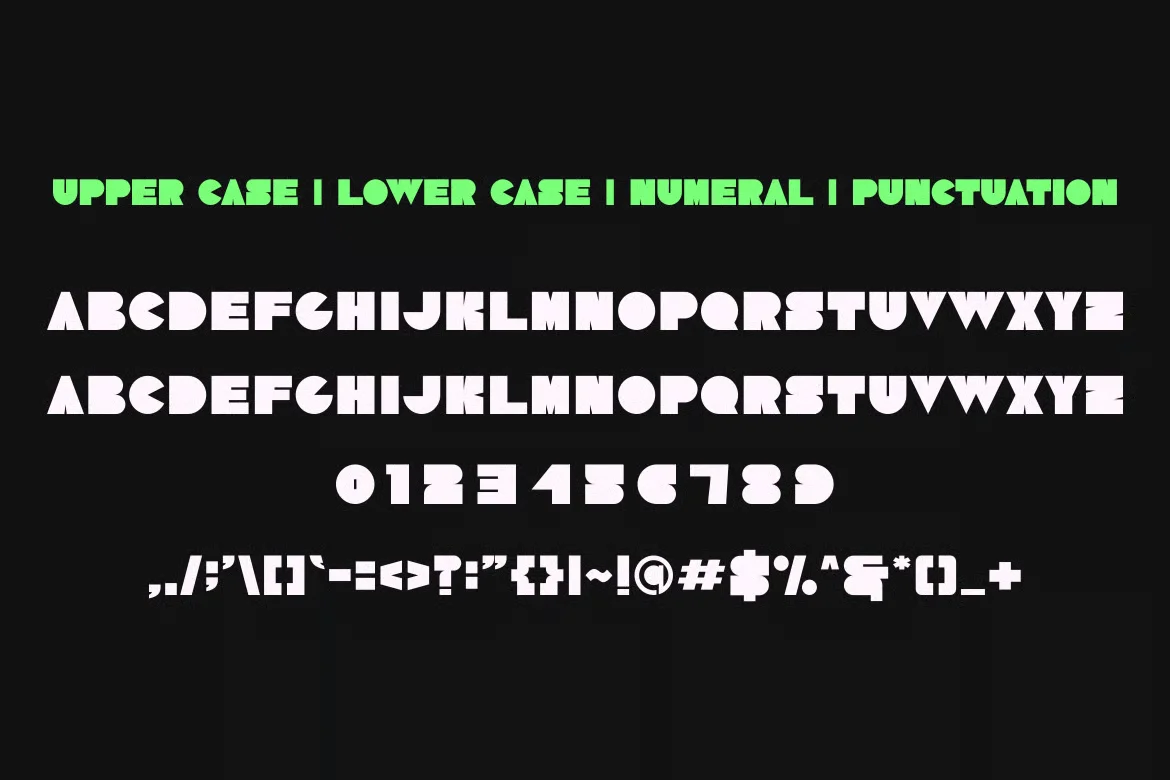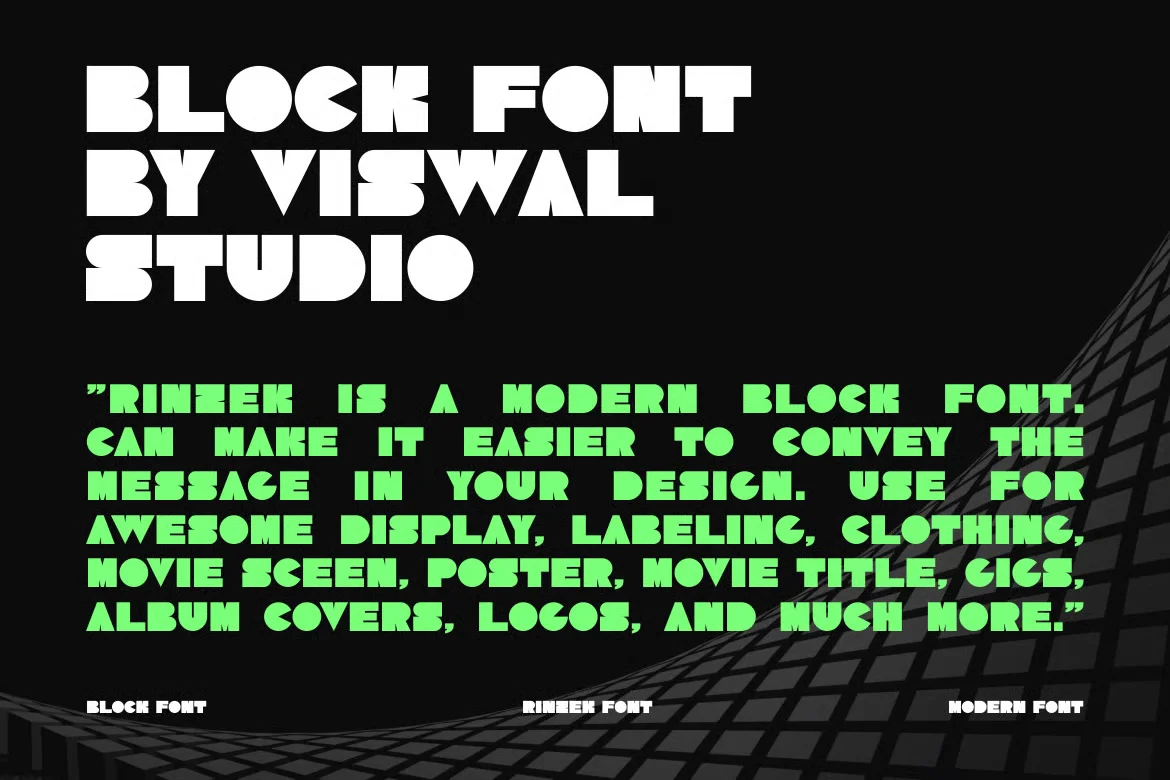
Rinzek Font is a display typeface designed to solve a common branding issue: creating strong visual impact without sacrificing clarity. Designers often need fonts that stand out in logos, posters, and digital headers while remaining readable across screens and print layouts.
Rinzek Font belongs to the display font category. It features bold letterforms, balanced proportions, and controlled stroke contrast. The characters use clean edges with slightly geometric shapes, which helps maintain legibility at large sizes. This structure supports consistent branding across marketing materials, UI headers, and promotional graphics. Extended glyph support may vary by version, so checking character coverage before use is recommended.